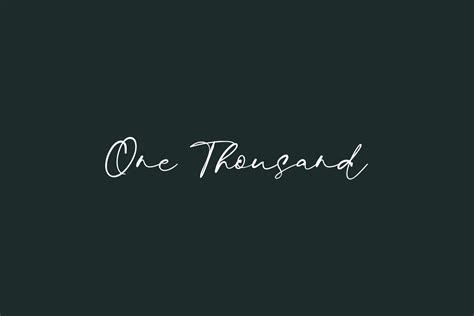
One Thousand One Fonts. Web one thousand handwritten font. Browse font categories such as calligraphy, handwriting, script, serif and.
One Thousand font by Etigletters FontRiver